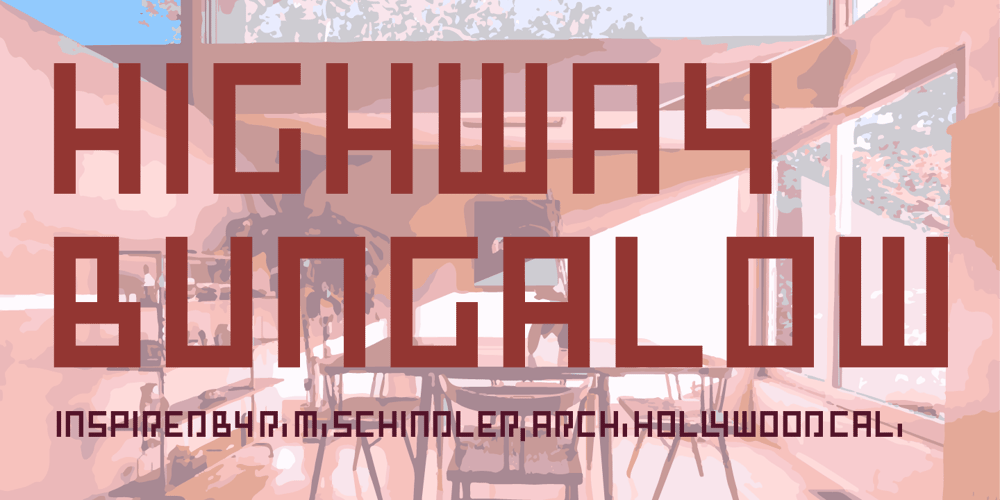
Highway Bungalow Font Family was designed by Matthew Vest and published by Cover Poets. Highway Bungalow contains 6 styles and family package options. Inspired by architect Rudolf M. Schindler’s hand lettering, this fearless display font is perfect in vintage and contemporary settings. As timeless as Schindler’s designs, Highway Bungalow is sure to impress.